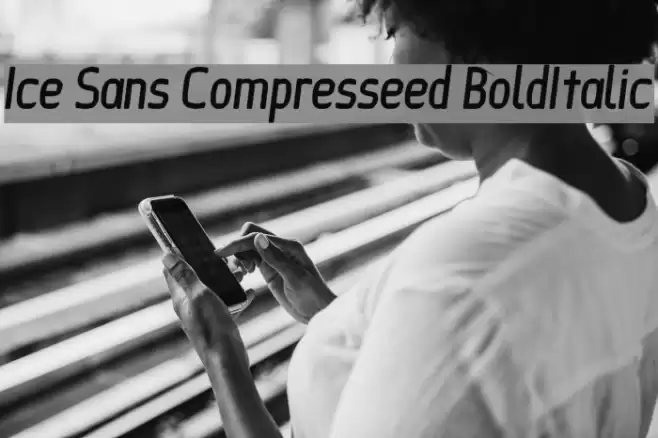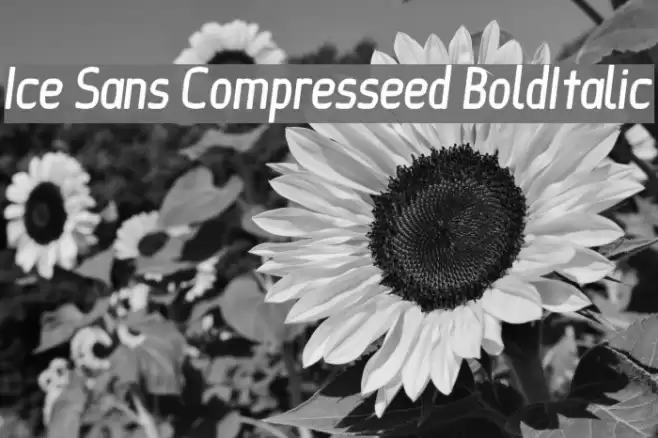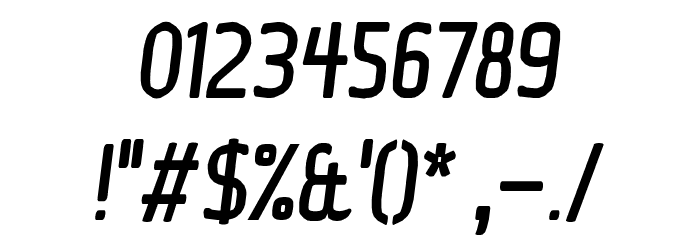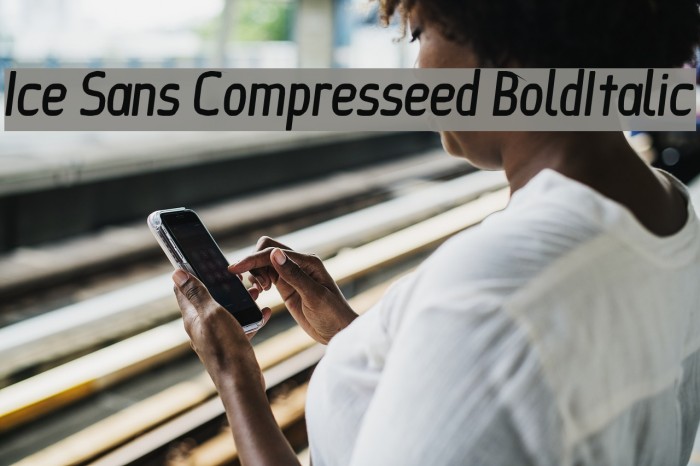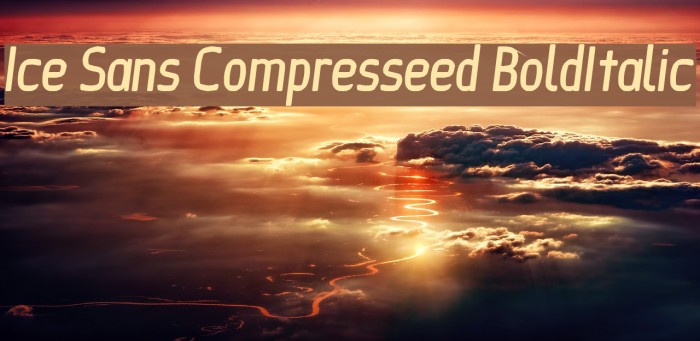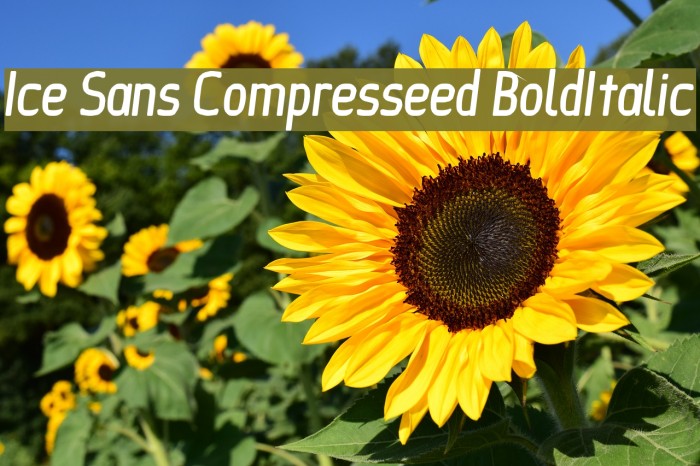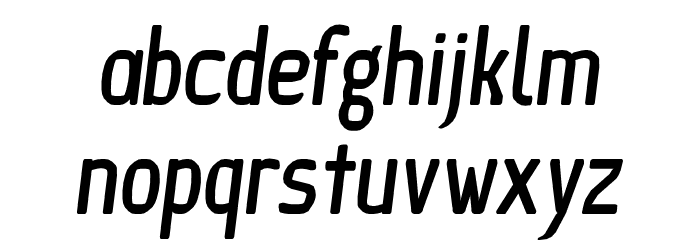
Ice Sans Compresseed BoldItalic Font
Ice Sans Compresseed BoldItalic Description
This font exhibits a modern and sleek design with a compressed and bold italic style. The characters are slightly slanted, giving a dynamic and forward-moving appearance. The strokes are consistent in thickness, providing a uniform look across all characters. The uppercase and lowercase letters maintain a cohesive style, while the numerals and special characters integrate seamlessly. The overall aesthetic is clean and contemporary, making it suitable for various design applications. The font's compressed nature allows for efficient use of space, making it ideal for headlines and titles where impact is essential.
A modern, compressed, bold italic font with a sleek and dynamic style from Uncategorized fonts.
- Character Spacing: Tight